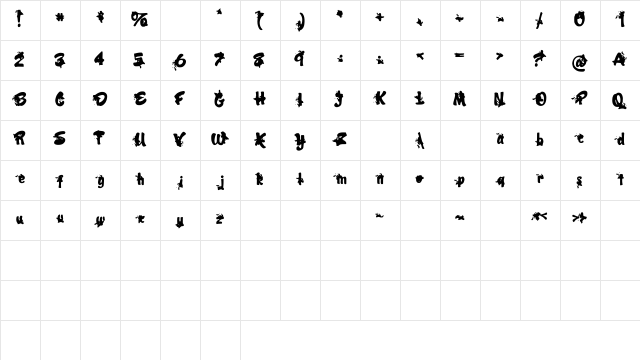
DeadJohn Medium Font Preview
DeadJohn Medium
DeadJohn Medium Font Details
Design Context for DeadJohn Typeface
DeadJohn is a composed and adaptable typeface that performs quietly and consistently across a wide range of design contexts.
Pro Tip: Pair DeadJohn with a font of contrasting weight or personality to build a more expressive typographic hierarchy.